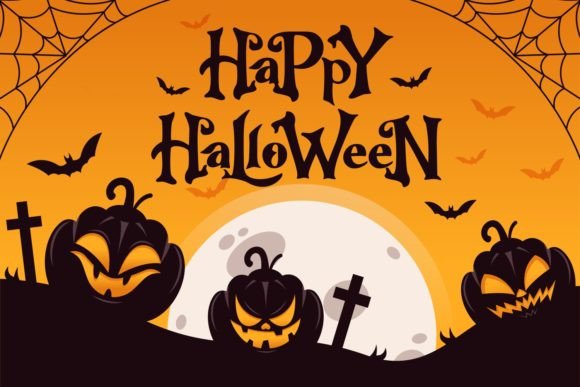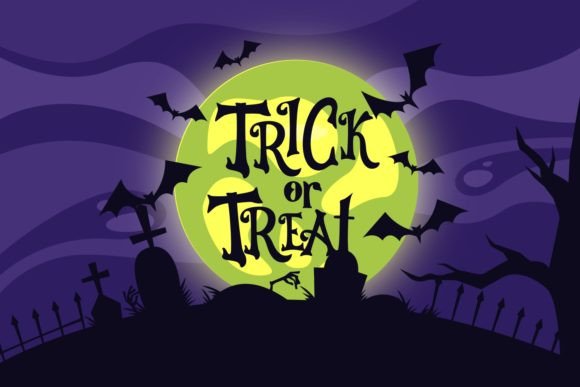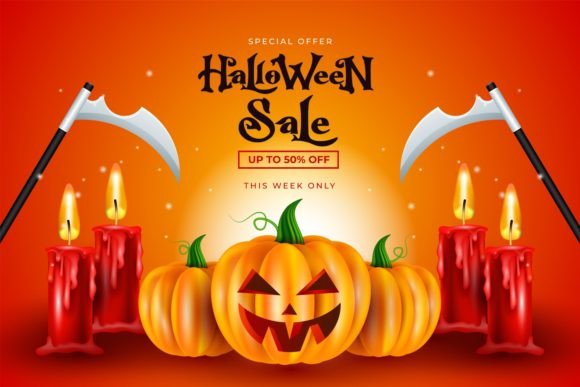
HalloWitchZ Font: The Ultimate Addition to Your Halloween-Themed Designs
As a designer or crafter, you’re always on the lookout for unique and eye-catching elements to make your projects stand out. When it comes to Halloween-themed designs, a distinctive font can make all the difference. That’s where HalloWitchZ comes in – an incredibly unique and interesting display font that’s sure to add a spellbinding touch to your creations.
What Makes HalloWitchZ So Special?
HalloWitchZ is not just another font; it’s an experience. Its design is deeply rooted in the mystique and allure of Halloween, making it the perfect choice for projects that require a touch of the macabre, whimsy, or supernatural. Whether you’re working on invitations, posters, packaging, or digital content, HalloWitchZ is sure to capture the essence of the spooky season like no other font can.
Features of HalloWitchZ Font
• Unique Design: HalloWitchZ boasts a one-of-a-kind design that combines eerie and whimsical elements, making it perfect for Halloween-themed projects.
• Display Font: As a display font, HalloWitchZ is optimized for headlines and titles, where its unique characteristics can be truly appreciated.
• Versatility: Despite its specific Halloween theme, HalloWitchZ can be used in a variety of creative projects, from party invitations to craft tutorials, and even digital banners.
How to Use HalloWitchZ in Your Designs
Incorporating HalloWitchZ into your Halloween-themed projects is simple. Here are a few ideas to get you started:
• Halloween Party Invitations: Use HalloWitchZ for the main title of your invitations to set the tone for a spooktacular event.
• DIY Craft Tutorials: Add a touch of personality to your craft tutorials with HalloWitchZ, especially for projects like pumpkin carving, ghostly decorations, or witch-themed crafts.
• Digital Content: Whether you’re creating social media posts, blog headers, or website banners, HalloWitchZ can add that extra Halloween magic to your digital content.
• Packaging: For those selling Halloween-themed products, using HalloWitchZ on packaging can make your items stand out on store shelves or online marketplaces.
Tips for Maximizing HalloWitchZ Impact
To truly make HalloWitchZ shine in your designs, consider the following tips:
• Play with Colors: Choose colors that complement the spooky or whimsical nature of HalloWitchZ. Deep purples, blacks, and oranges can enhance the Halloween vibe.
• Experiment with Sizes: HalloWitchZ is designed to make a statement. Experiment with different sizes to see how it looks as a giant headline or a smaller, yet impactful, design element.
• Combine with Other Elements: Don’t be afraid to pair HalloWitchZ with other Halloween-themed graphics or fonts for a layered, eclectic look.
HalloWitchZ is more than just a font; it’s a creative tool that can elevate your Halloween-themed designs to new heights. Its unique blend of spookiness and whimsy makes it the perfect addition to any project aiming to capture the essence of the Halloween season. Whether you’re a professional designer or a crafting enthusiast, HalloWitchZ is sure to inspire your creativity and make your projects stand out. So, add HalloWitchZ to your font collection today and cast a spell of creativity on your designs!